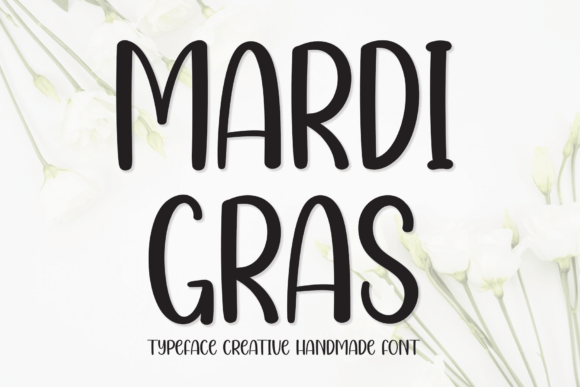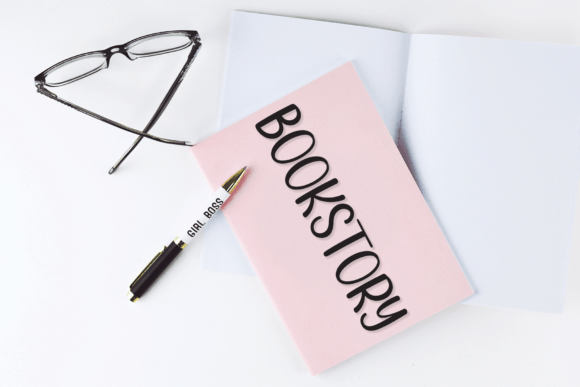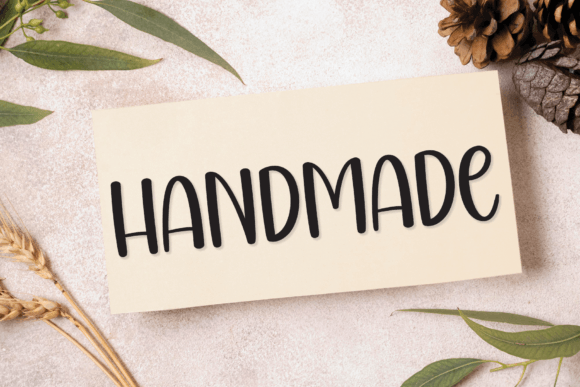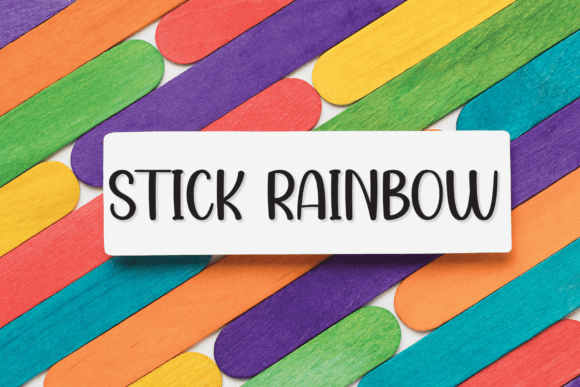
Mardi Gras Font
About the Mardi Gras Font
Welcome to the world of Mardi Gras Font, a typeface that will inspire your next great project. Mardi Gras is a creative handwritten typeface with thick and thin lines. This lovely font is perfect for quotes, branding, logos, books, covers, posters, social media posts, and more.
Mardi Gras’s bold, playful energy makes it ideal for projects needing a touch of fun and vibrancy. It excels in headlines, short-form text for posters and social media, and branding applications where a hand-drawn feel is desired. However, its less-than-optimal legibility makes it unsuitable for body text or UI elements requiring extended reading.
Consider pairing Mardi Gras with a clean sans-serif like Open Sans for a balanced contrast, or a classic serif like Garamond for a touch of sophistication. For a more playful look, a geometric sans-serif such as Futura could also work well, depending on the overall design aesthetic.
The font’s inherent whimsicality makes it perfect for brands targeting a younger demographic or those with a light-hearted, celebratory image. Avoid using it where a sense of formality or authority is paramount.
Mardi Gras Font Usage Examples
Mardi Gras Font Example